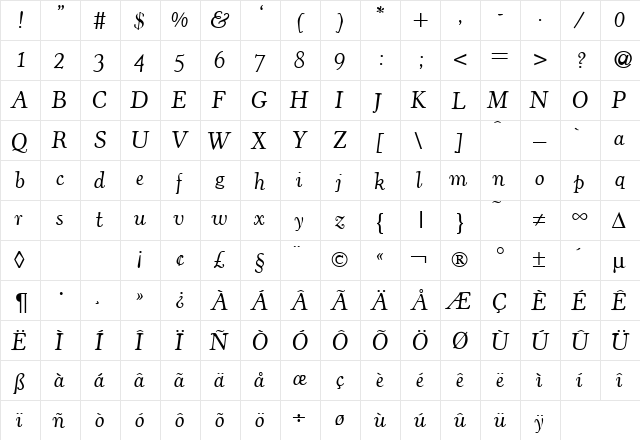
CooperOldStyle RegularItalic Font Preview
CooperOldStyle RegularItalic
Design Context for CooperOldStyle Typeface
CooperOldStyle carries the refined structure of traditional serif typography, with bracketed terminals and considered proportions that communicate credibility and craft. The dynamic lean of this cut emphasises speed and emphasis in any layout.
Pro Tip: Use CooperOldStyle for editorial body copy and considered headline work. Pair with a neutral sans for UI elements or captions to create a classic hierarchy.